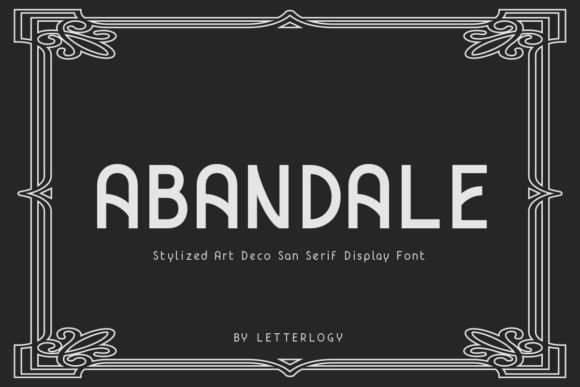
Unleash the Vintage Vibes with the Abandale Font
Remember the thrill of rummaging through your grandparents’ attic, uncovering dusty trunks filled with forgotten treasures? It’s moments like these that spark creativity and transport us to a bygone era. The allure of vintage designs is undeniable, and it’s this same nostalgia that drives us to create typography that evokes the glamour of the past.
Enter the Abandale Font, a stylized Art Deco sans serif display font that effortlessly combines readability with personality. Designed to add a touch of sophistication to your classic, vintage, and retro-themed designs, this font is a game-changer for creatives. With its unique form and appearance, the Abandale Font is the perfect addition to any project that demands style and elegance.
- Unique Characteristics: Abandale Font features a clean, modern design with a subtle rounded edge, making it suitable for digital interfaces and branding materials.
Abandale Font Review
As a designer, I’ve had the chance to work with Abandale Font, and I must say it’s a unique and interesting typeface. ✨ The font’s modern and elegant design makes it perfect for use in various digital projects, such as websites, social media, and advertising materials. The clean lines and precise shapes give it a professional look that’s hard to ignore.
- ✨ Unique and modern design that sets it apart from other fonts.
- ✨ High-quality digital font that works well in various digital platforms.
- ✨ Elegant and professional look that’s perfect for corporate and business projects.
However, there are a few limitations to consider. ⚠️ The font’s lack of support for some languages may be a concern for designers who need to work with multiple languages. Additionally, the font may not be suitable for use in print materials, as it may not be as legible in smaller font sizes.
- ⚠️ Limited language support, which may be a concern for designers who need to work with multiple languages.
- ⚠️ May not be suitable for use in print materials due to legibility issues in smaller font sizes.
Overall, Abandale Font is a great addition to any designer’s toolkit. While it has its limitations, its unique design and high-quality digital rendering make it a great choice for various digital projects.
Abandale Font is a versatile font that can be used in a variety of designs, including:
1. Headings and titles
2. Body text
3. Logos and branding
4. Social media graphics
Alternatives to Abandale Font
The Abandale Font is a sans-serif typeface known for its clean and modern aesthetic. When looking for alternatives, consider the following options:
Bebas Neue is a sans-serif font designed by Ryoichi Tsunekawa. It is known for its bold and geometric appearance, making it suitable for headings and titles. Bebas Neue is similar to Abandale Font in its modern feel, but it has a more dramatic and attention-grabbing quality.
Avenir is a sans-serif font designed by Adrian Frutiger. It is known for its clean and elegant appearance, making it suitable for body text and titles. Avenir is similar to Abandale Font in its modern feel, but it has a more refined and sophisticated quality.